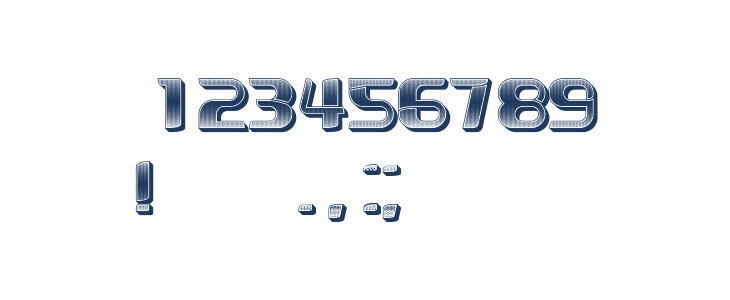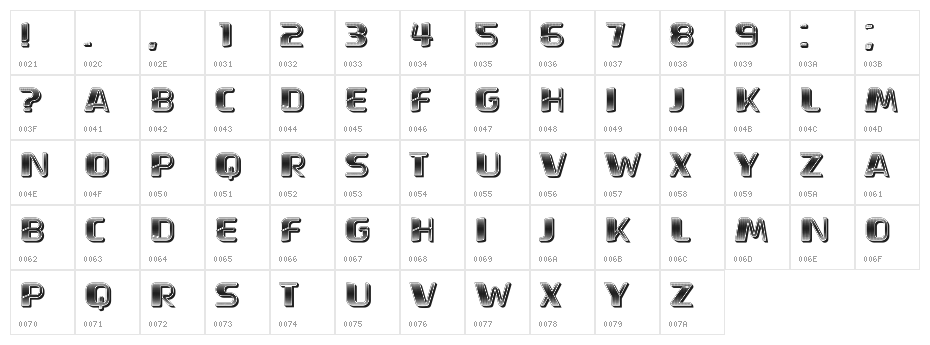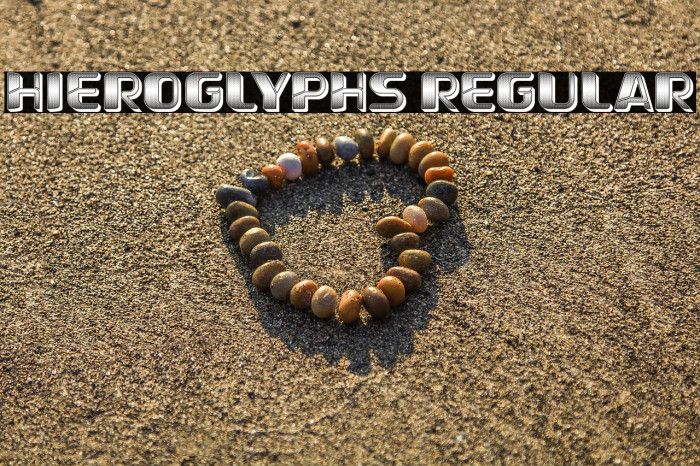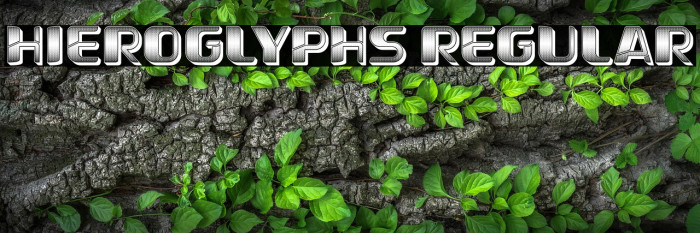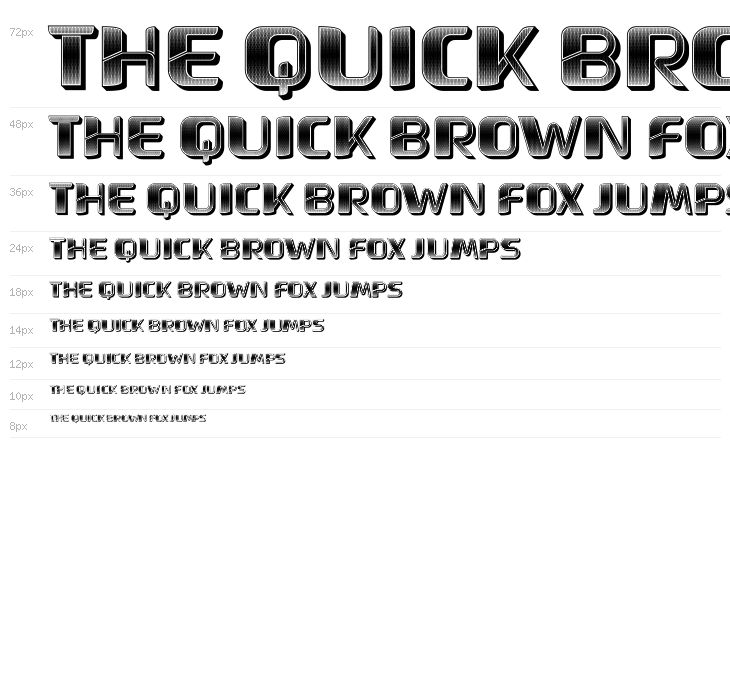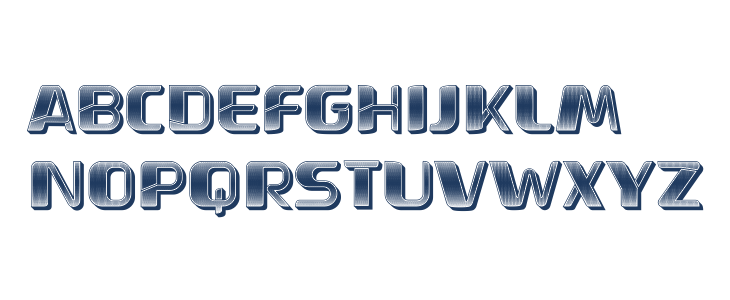
Hieroglyphs Regular Font
Hieroglyphs Regular Description
This font features a bold, three-dimensional appearance with a distinct shadow effect, giving it a strong and impactful look. The characters are uppercase and numerals, each with a textured pattern that adds depth and visual interest. The design is reminiscent of vintage or retro styles, with a modern twist that makes it suitable for eye-catching headlines or display purposes. The boldness of the font ensures that it stands out, while the shadow effect provides a sense of movement and dynamism. The overall style is decorative, making it ideal for projects that require a unique and striking typeface.
| Proposed Projects | Ideal for posters, logos, headlines, and any design needing a bold, eye-catching typeface. |